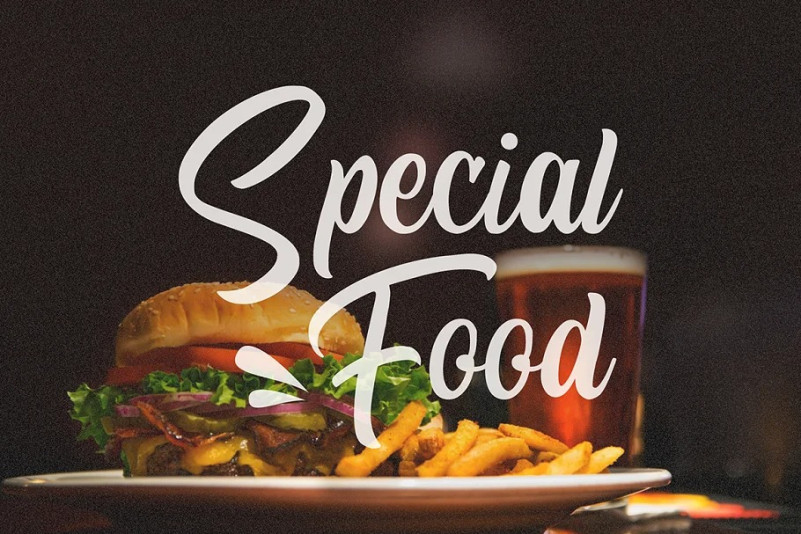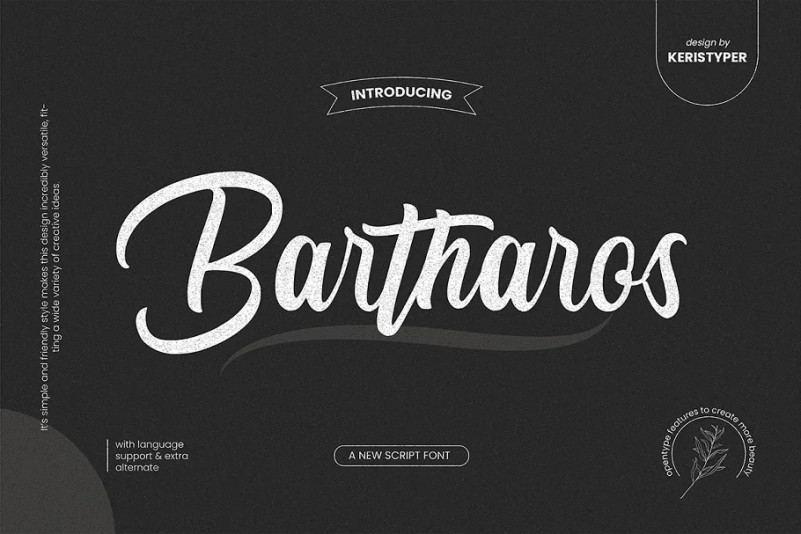
Bartharos Font
Introducing Bartharos Script Font which has an elegant and natural hand lettering brush style like handmade. This font is best suited for your design projects that are fun, bold, and sporty. Can also be applied to logotype designs, website headers, making multiple letters for quotes, t-shirt designs, etc.